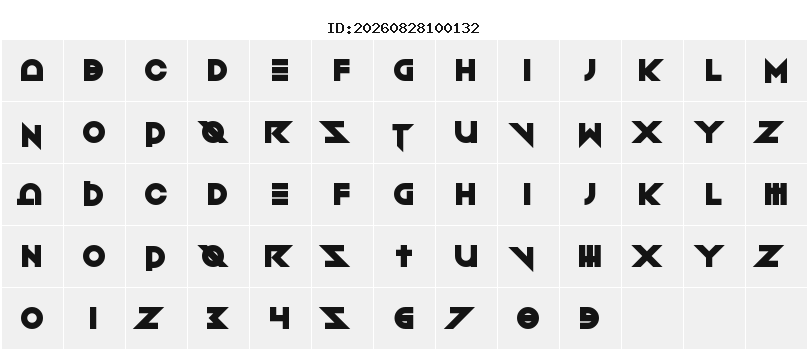
• Font Name: Toxico
• Designer: AM
Toxico.otf is a modern, elegant sans-serif font designed for ultimate readability and visual harmony. Perfect for branding, headlines, web design, and print materials.